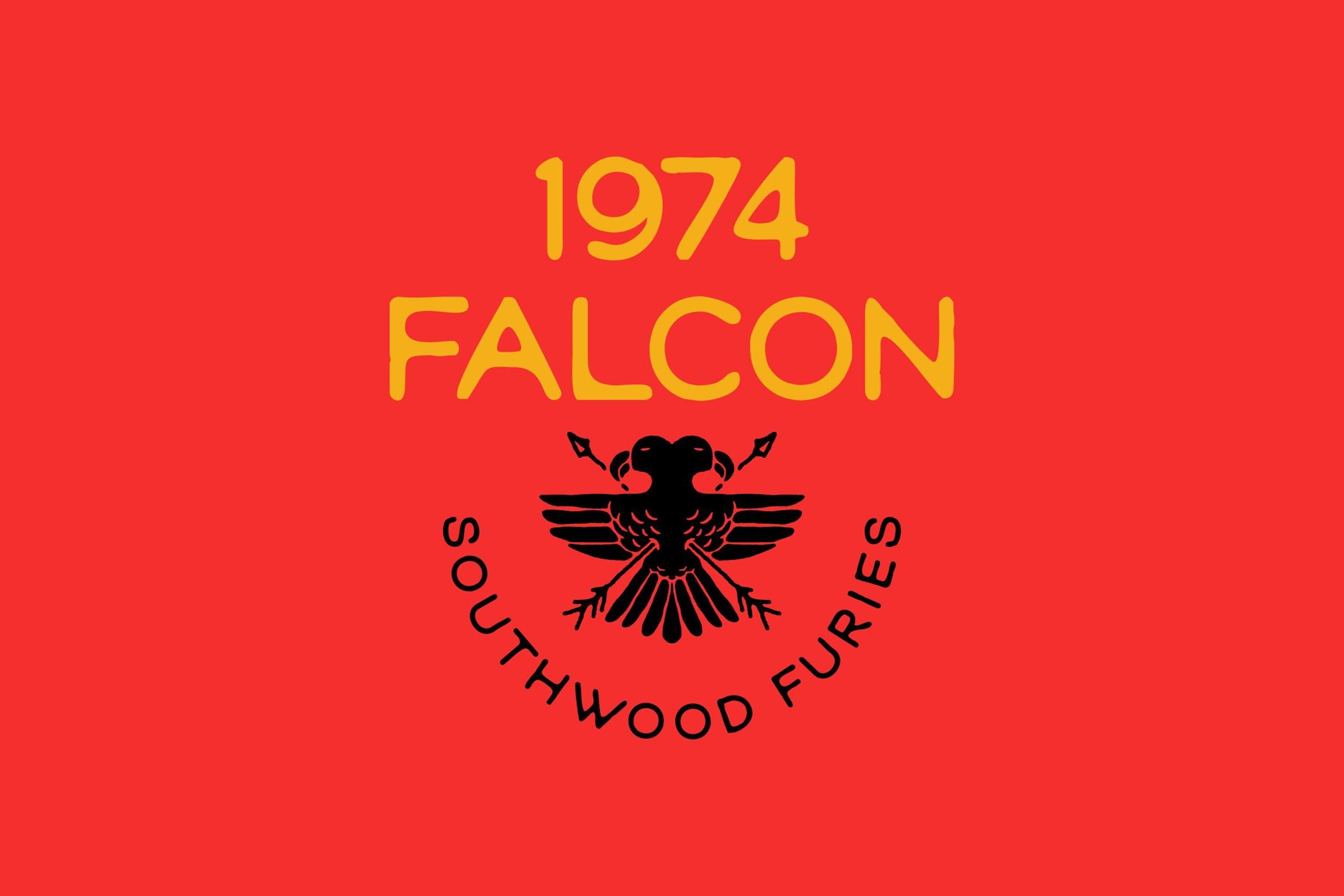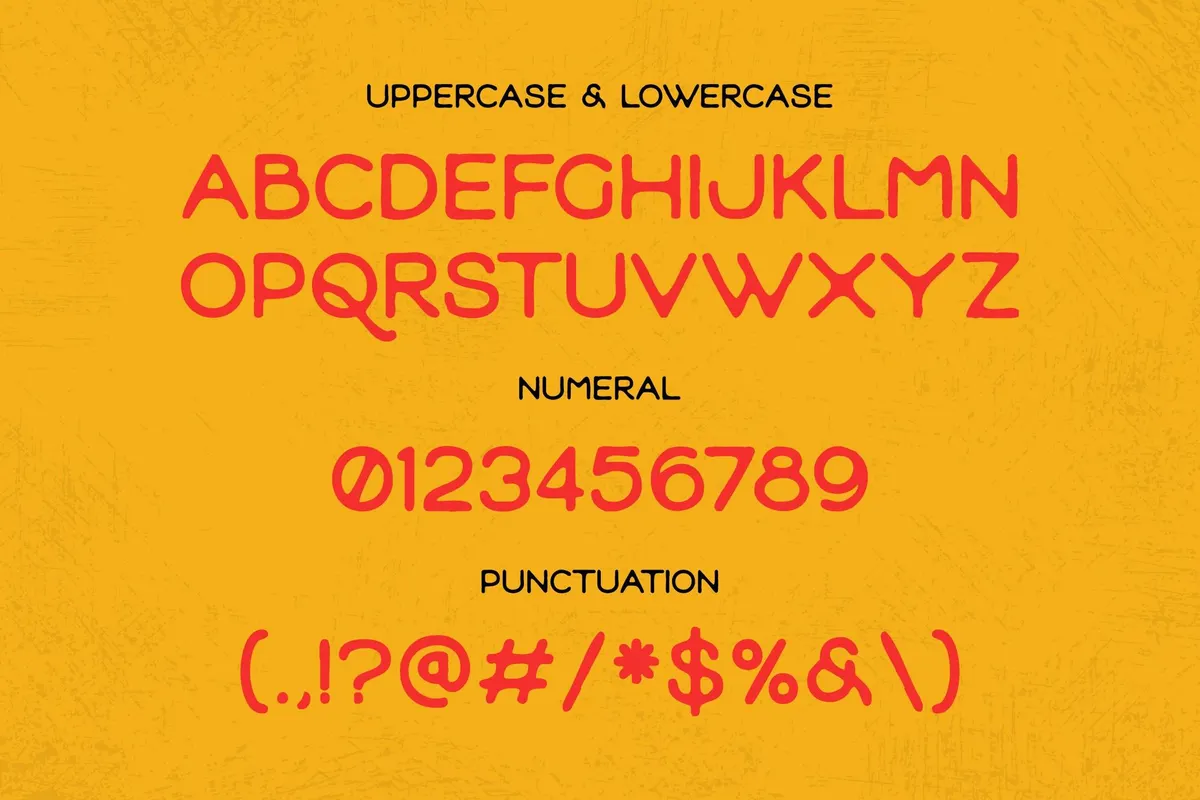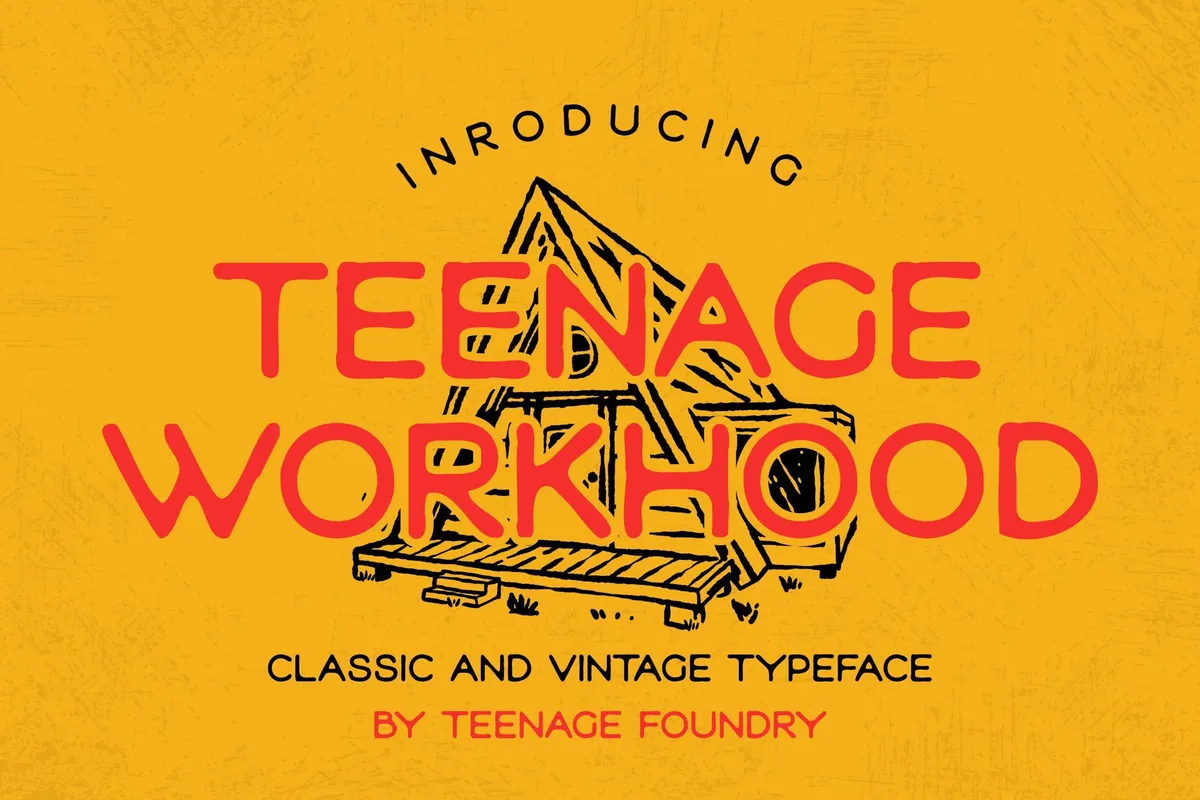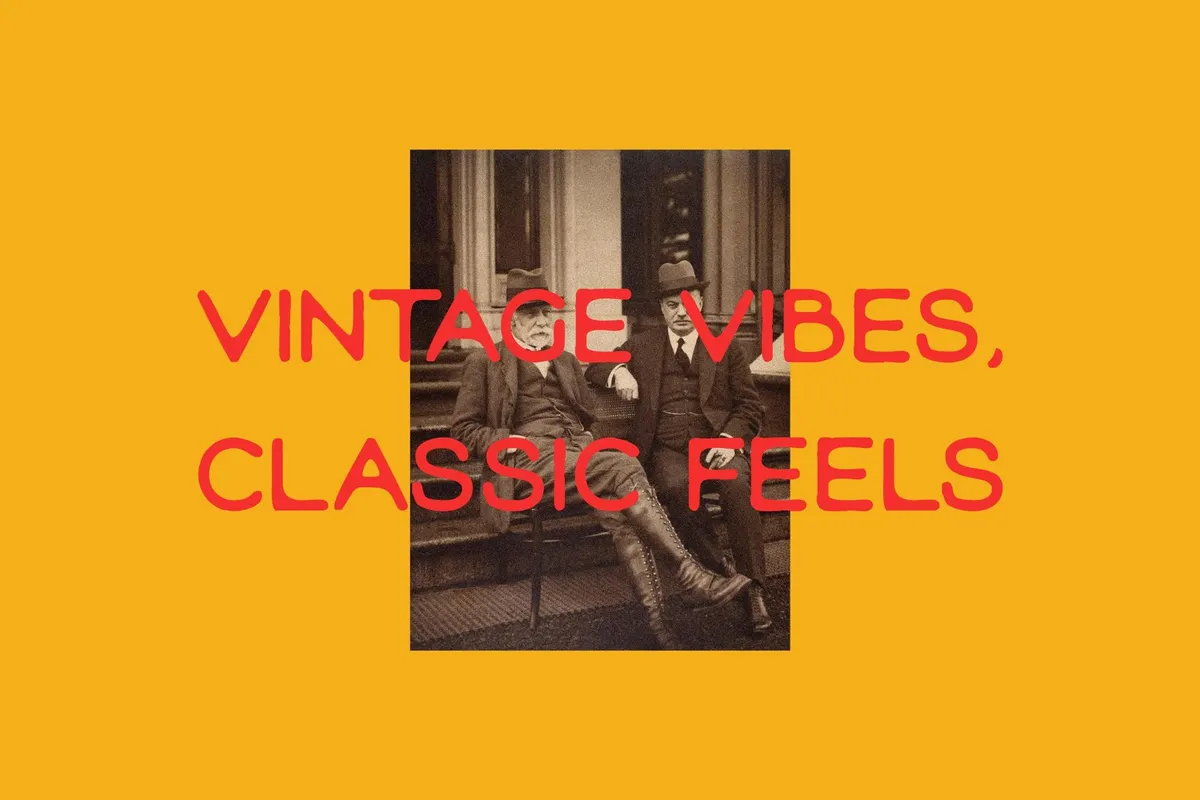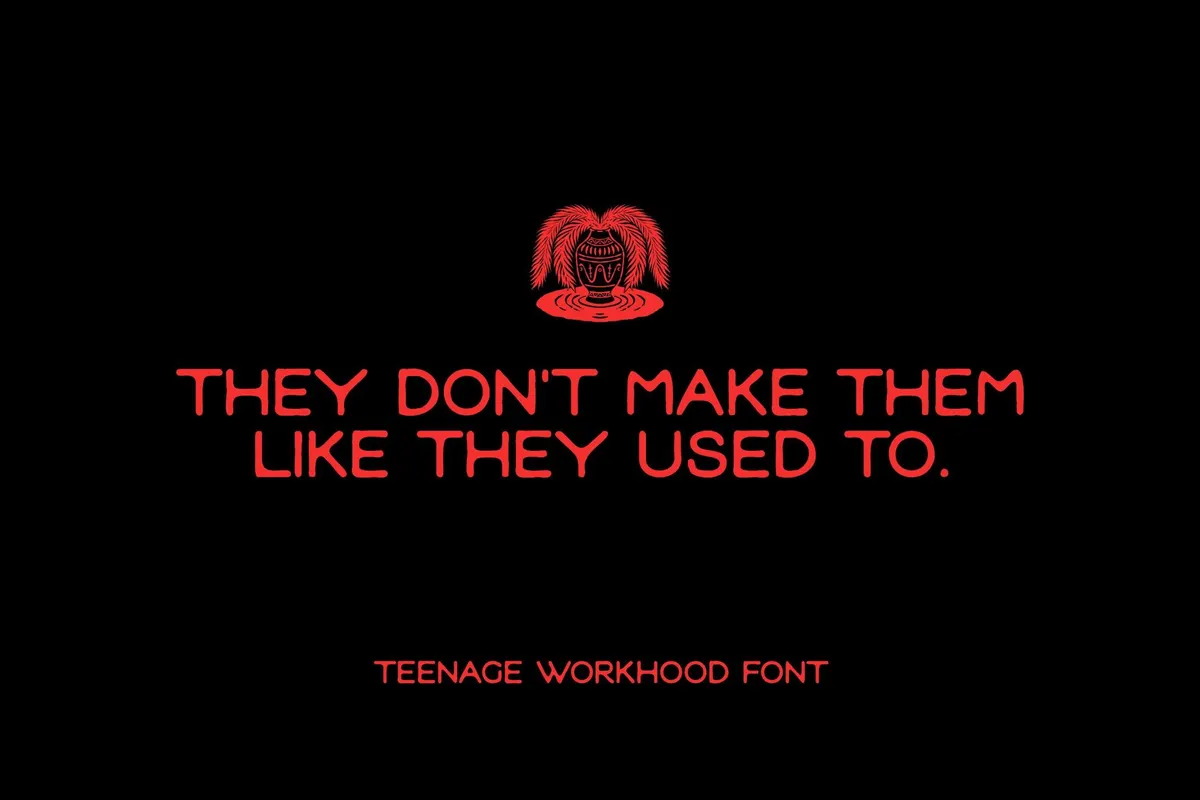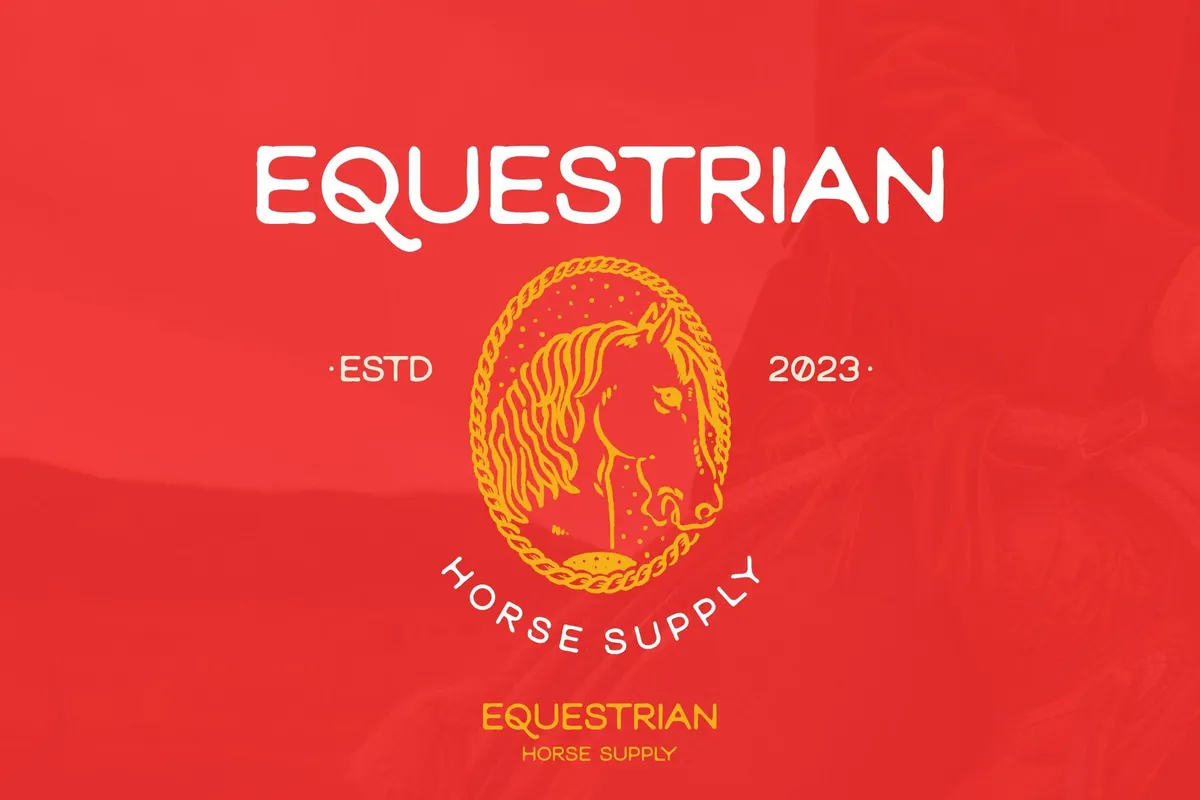
Teenage Workhood Typeface
Alright, imagine if a font could roll up its sleeves, smell like wood shavings, and leave a little grit under your nails. That’s Teenage Workhood. It's a throwback to the days when things felt a bit more real, a bit more handmade.
This vintage-inspired typeface brings back the charm of classic workmanship and youthful creativity — that “built it in the backyard” vibe, where imperfections add character. It’s a whole love letter to retro aesthetic, with a look that feels both rooted in the past and ready for the present. Equipped with uppercase, lowercase, numerals, punctuation, and multilingual support, it’s made for everything from old-school logos to retro packaging and even vintage websites. And, to sweeten the deal, there are four bonus illustrations to give your designs that extra flair.